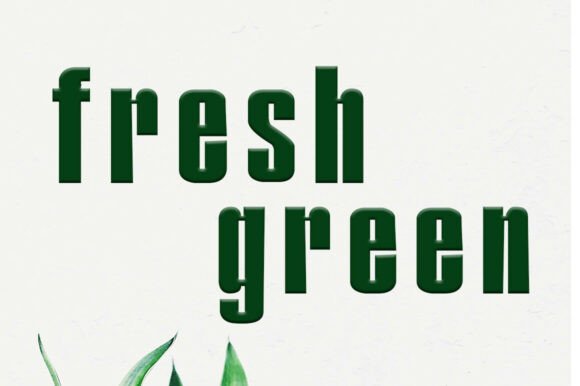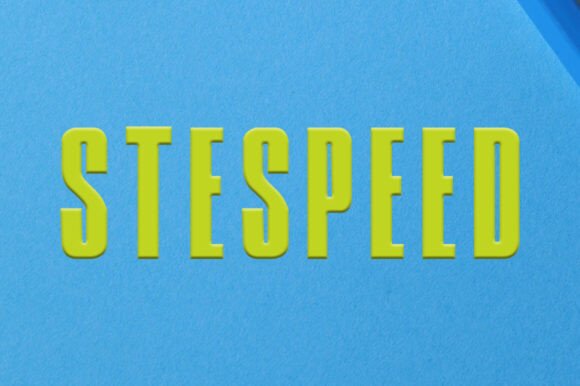
Introduction to Romusa Font
Romusa is a modern font that prioritizes simplicity and readability.
With its clean, proportional, and serif-free letterforms, Romusa gives a minimalist, professional, and contemporary impression Its bold yet friendly character makes it suitable for various design needs such as logos, titles, posters, digital media, and interface text.